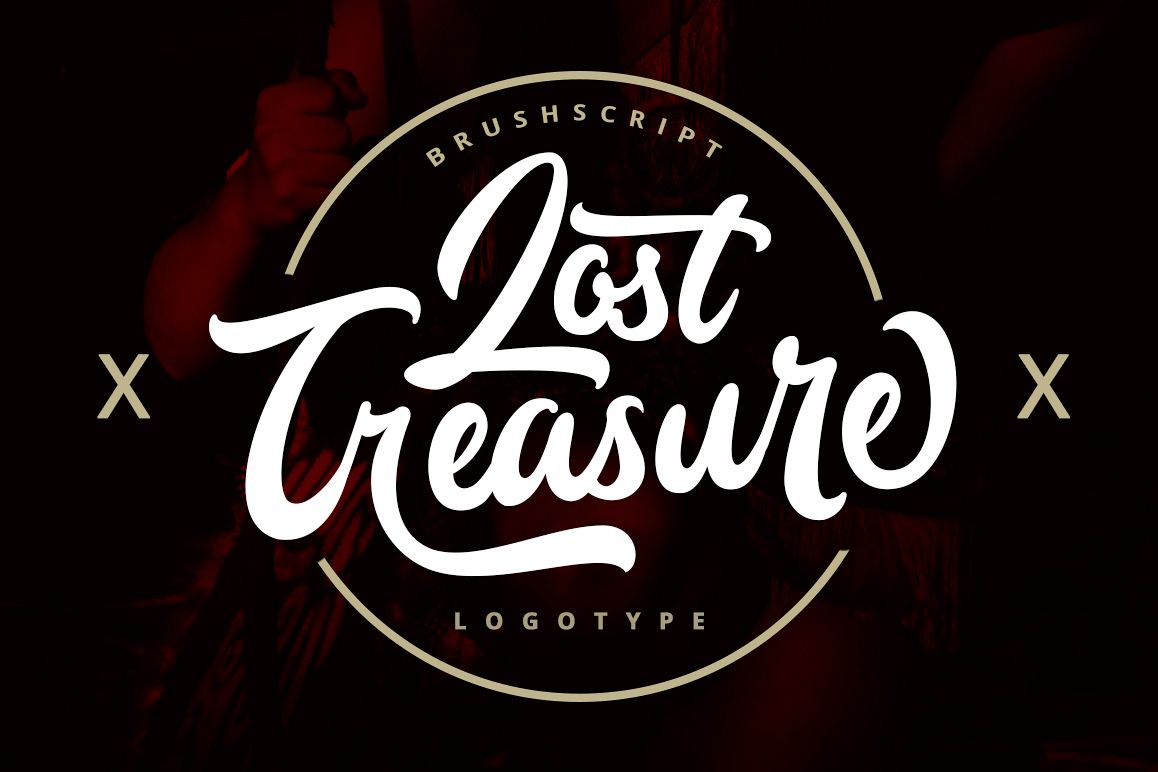
Lost Treasure is a lining and clean brush script with soft and round letterforms. Ideal for logos, handwritten quotes, product packaging, header, poster, merchandise, social media & greeting cards.Best Seller Font :